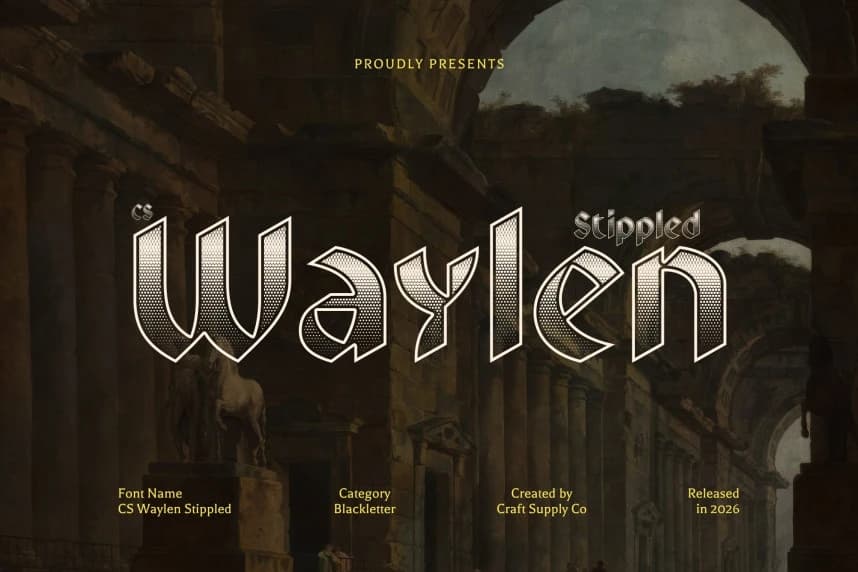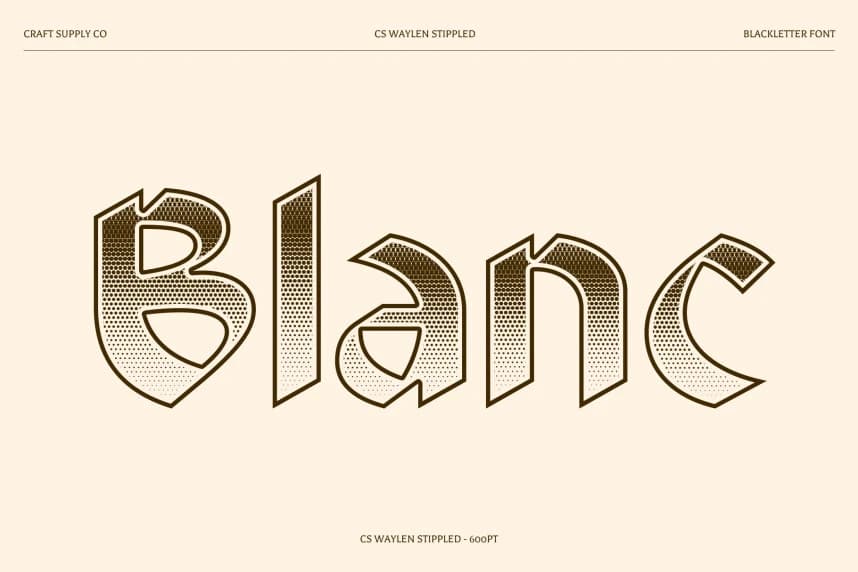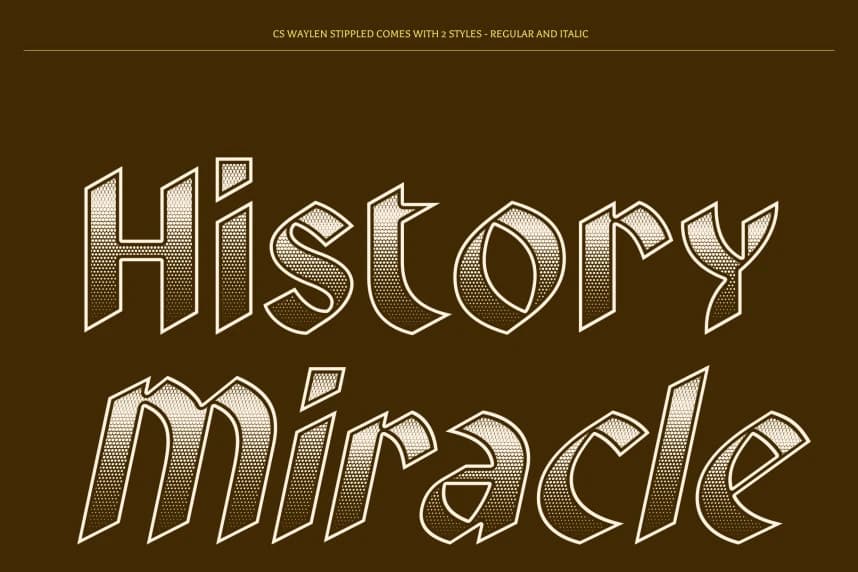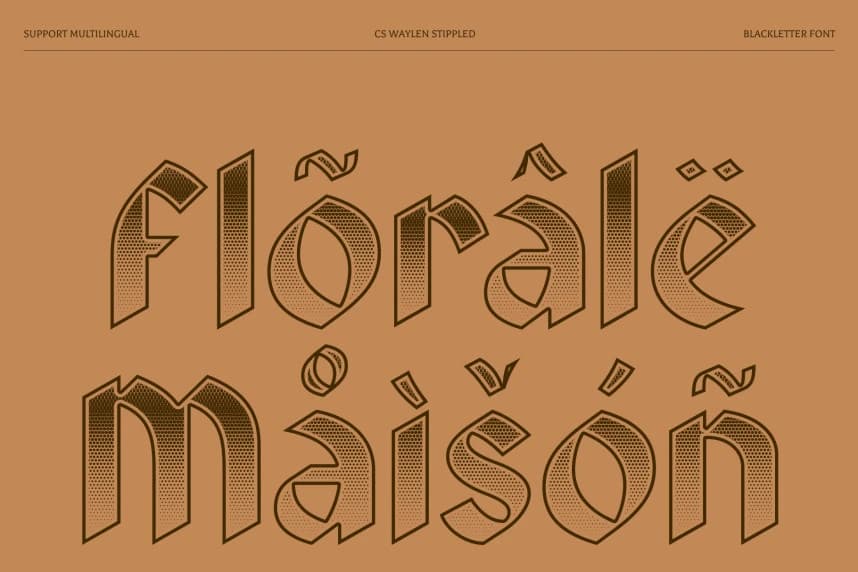
CS Waylen Stippled Font
CS Waylen Stippled Font – Blackletter Font with Bold Textured Tradition Bold Blackletter Style with Stippled Depth. This is a powerful blackletter display font that captures the dramatic character of traditional Gothic typography.